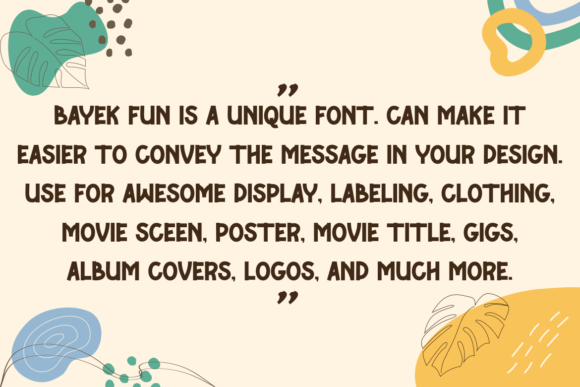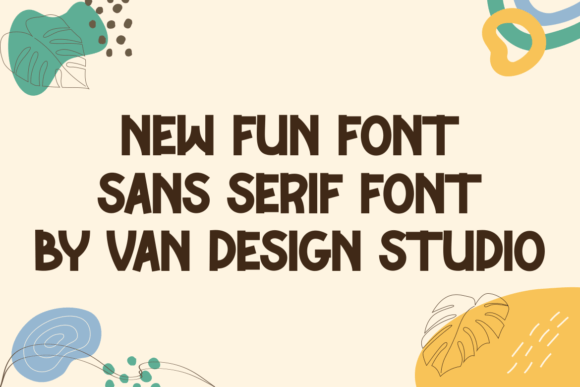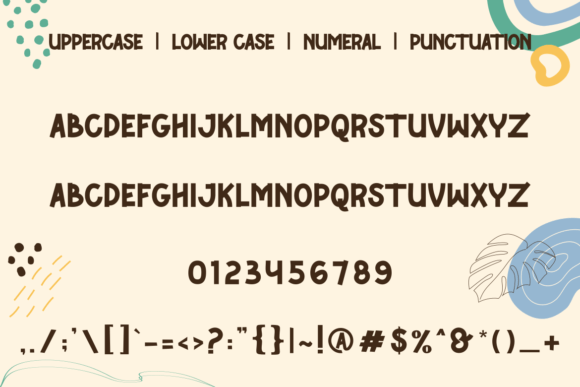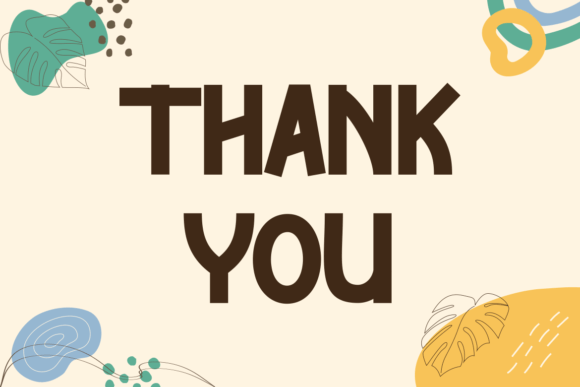
Introducing Bayek Fun Font: The Ultimate Display Font for Friendly Designs
Are you tired of using the same old fonts for your designs, crafts, and digital projects? Look no further than Bayek Fun Font, a childish and easy-to-read display font that’s perfect for conveying friendliness and approachability. In this article, we’ll dive into the world of Bayek Fun Font and explore its features, benefits, and uses, making it the perfect addition to your font collection.
What is Bayek Fun Font?
Bayek Fun Font is a display font designed to bring a touch of playfulness and whimsy to your designs. Its childish and carefree style makes it perfect for a variety of projects, from crafts and digital design to presentations and greeting cards. With its clean and simple lines, Bayek Fun Font is incredibly easy to read, making it accessible to audiences of all ages.
The Benefits of Bayek Fun Font
So, what sets Bayek Fun Font apart from other fonts? Here are just a few benefits that make it a standout:
- Friendliness: Bayek Fun Font exudes warmth and approachability, making it perfect for designs that require a personal touch.
- Ease of use: Its simple and clean design makes it easy to read and use in a variety of contexts.
- Versatility: Bayek Fun Font is perfect for a range of projects, from digital design to crafting and making greeting cards.
- Fun and playful: This font adds a touch of playfulness to any design, making it perfect for projects that require a bit of whimsy.
Uses for Bayek Fun Font
Bayek Fun Font is an incredibly versatile font that can be used in a variety of contexts. Here are just a few ideas to get you started:
- Crafts: Use Bayek Fun Font to add a personal touch to your crafts, from scrapbooking to card making.
- Digital design: This font is perfect for digital designers looking to add a playful touch to their work, from social media graphics to website headers.
- Presentations: Add a bit of fun and personality to your presentations with Bayek Fun Font.
- Greeting cards: Create personalized and playful greeting cards with Bayek Fun Font.
Why Bayek Fun Font is a Great Addition to Your Font Collection
With so many fonts available, why should you choose Bayek Fun Font? Here are just a few reasons why it’s a great addition to your font collection:
- Unique style: Bayek Fun Font has a unique and distinctive style that’s sure to set your designs apart.
- Ease of use: This font is incredibly easy to use, making it perfect for designers of all skill levels.
Key Features of Bayek Fun Font
| Font Style | Childish, easy-to-read display font |
| Use Cases | Crafts, digital design, presentations, greeting cards |
| Readability | Incredibly easy to read, making it accessible to audiences of all ages |